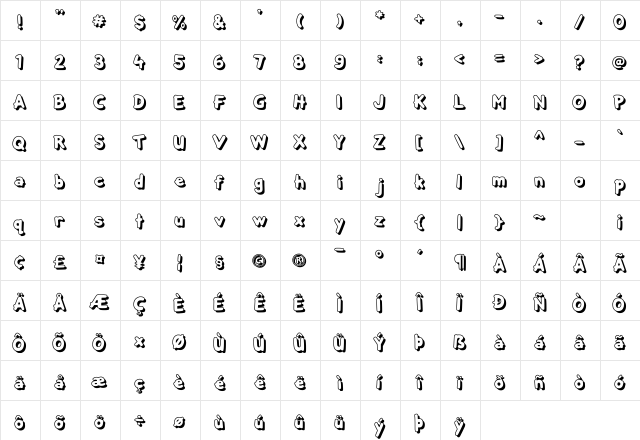
Bubblee Kids Shadow Regular
Design Context for Bubblee Kids Shadow Typeface
Bubblee Kids Shadow trades formality for fun, with bouncy, characterful letterforms that bring warmth and energy to any project.
Font Pairing: Pairs well with a rounded or humanist sans for body copy, maintaining the friendly tone without relying on Bubblee Kids Shadow to carry extended reading.
Pro Tip: Use Bubblee Kids Shadow at larger display sizes where its expressive character can land. Pair with a clean, simple sans for body copy to maintain readability.